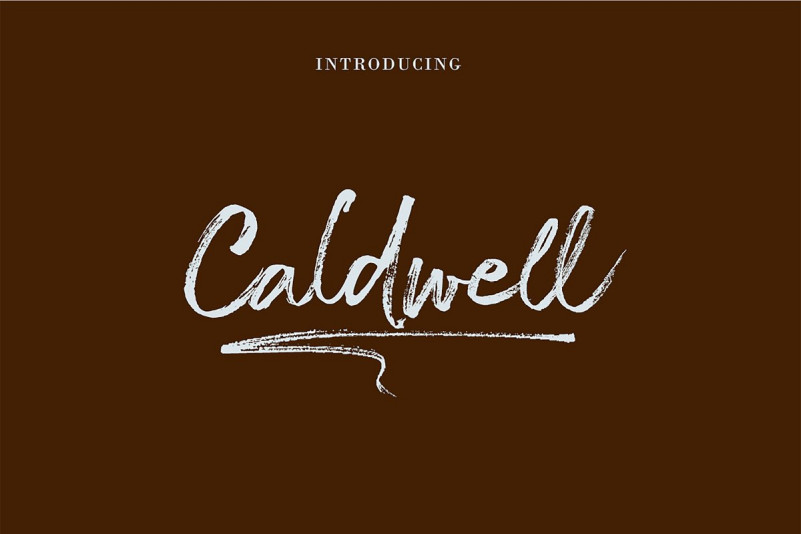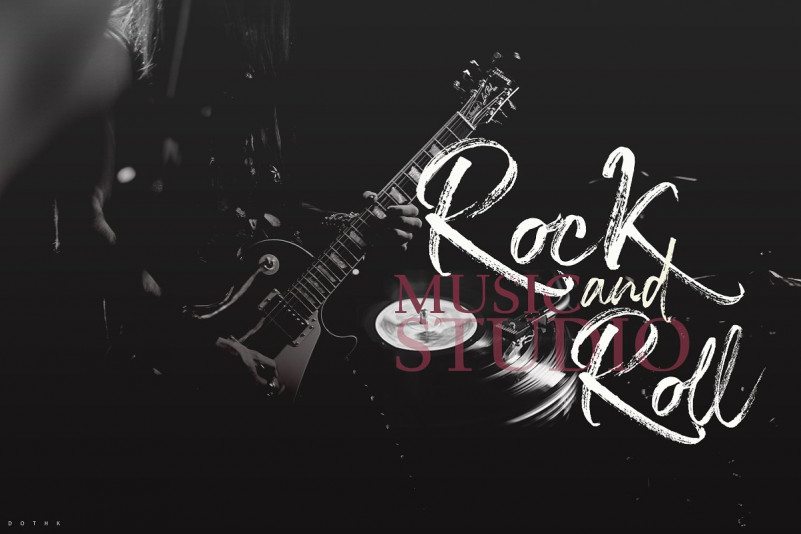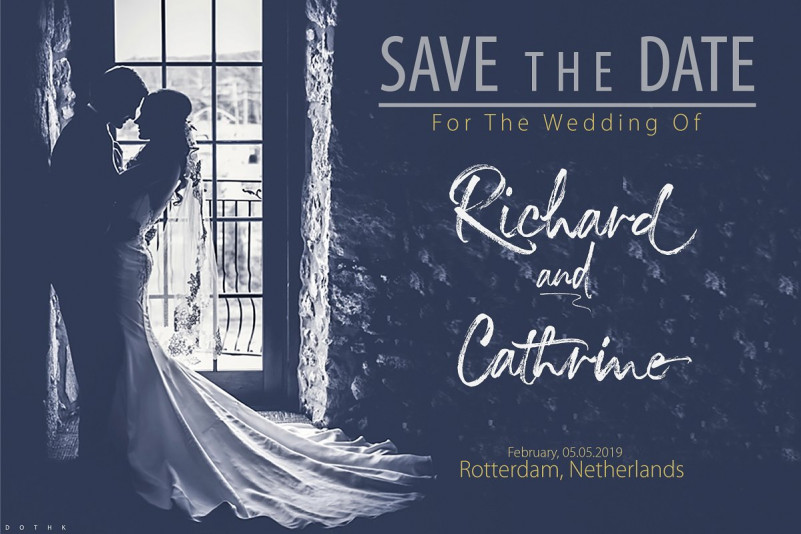
The Caldwell Font
The Caldwell Brush is handmade signature style font with stunning characters. Ideal for logos, name tag, handwritten quotes, product packaging, merchandise, social media & greeting cards. It contains a full set of lower & uppercase letters, a large range of punctuation, numerals, and multilingual support.